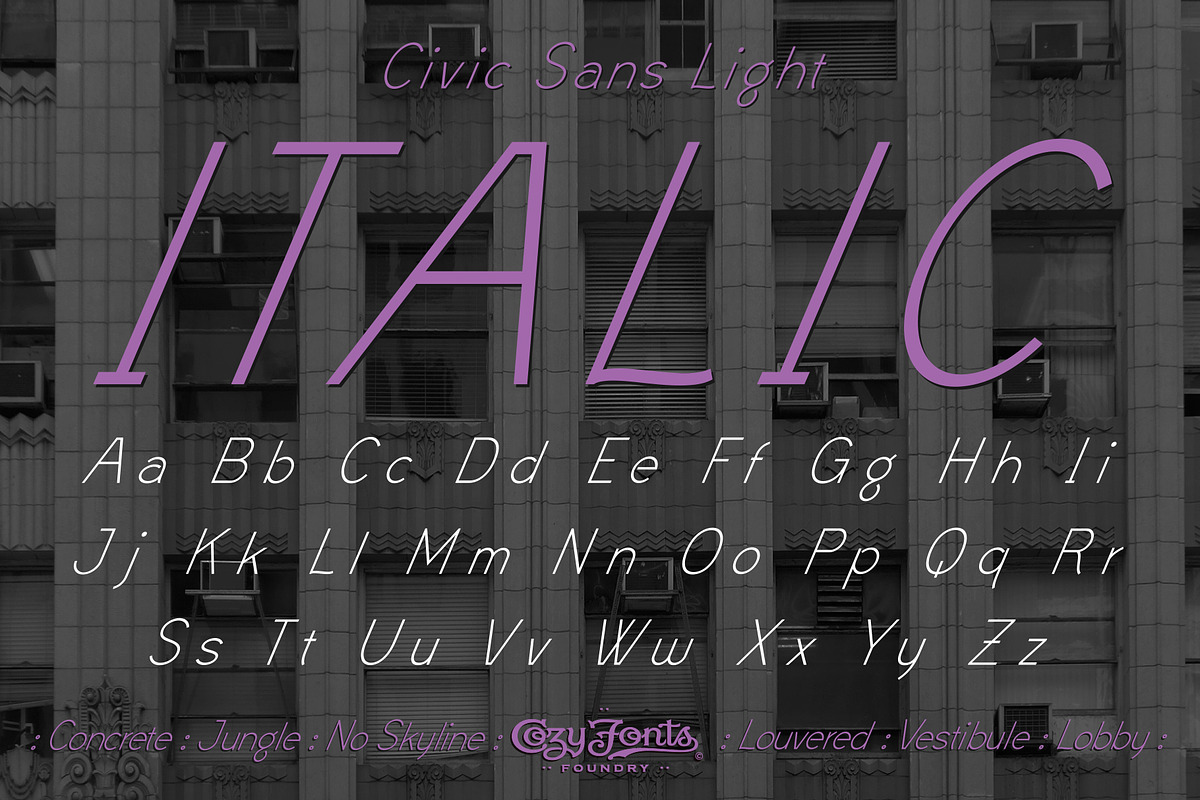
Civic Sans Light Italic
The third version of Civic Sans Font Family & the perfect match to Civic Sans Light, Italic has it's own personality yet works in concert with Light. It's elegant, contemporary yet with a subtle flair of retro. Let's call it sophisticated 'moderne'. Try it! Than let us know what you think.